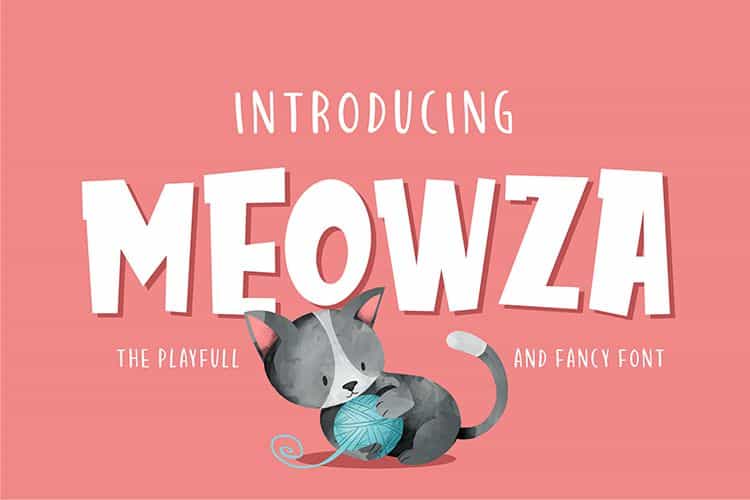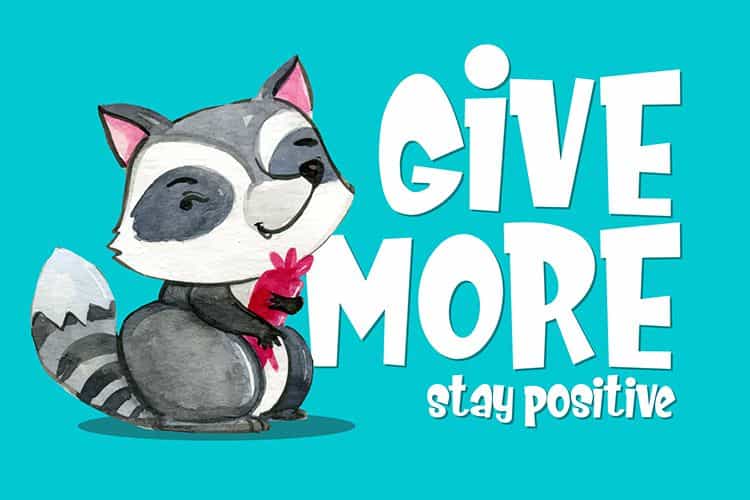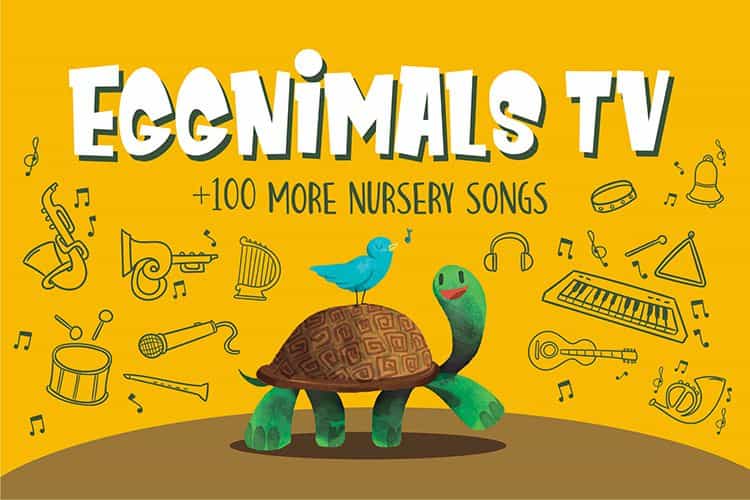
Introducing Meowza Font. The Meowza is a fun and fency font, I had this idea from my little kids. You can use meowza for posters, t-shirt design, youtube channel cover or anything you want.